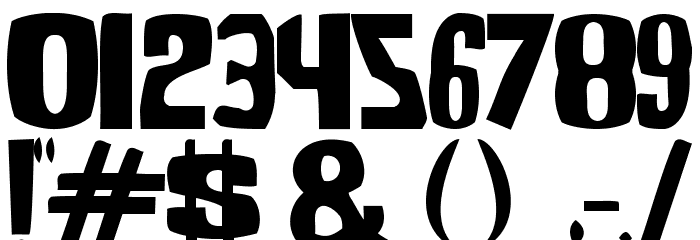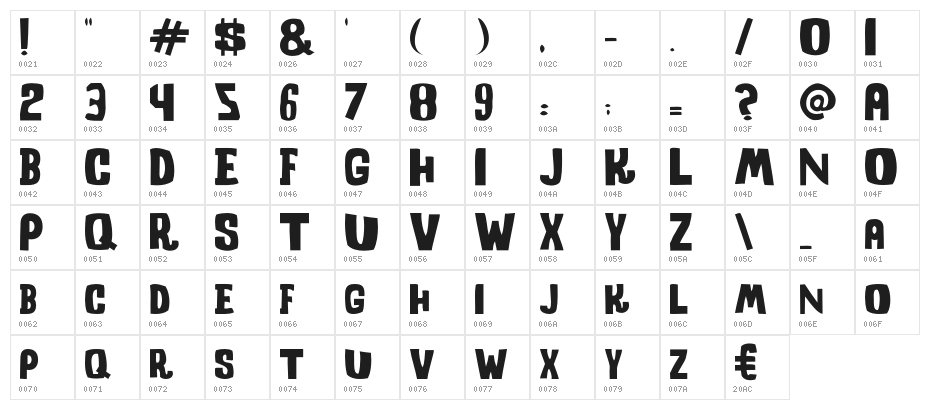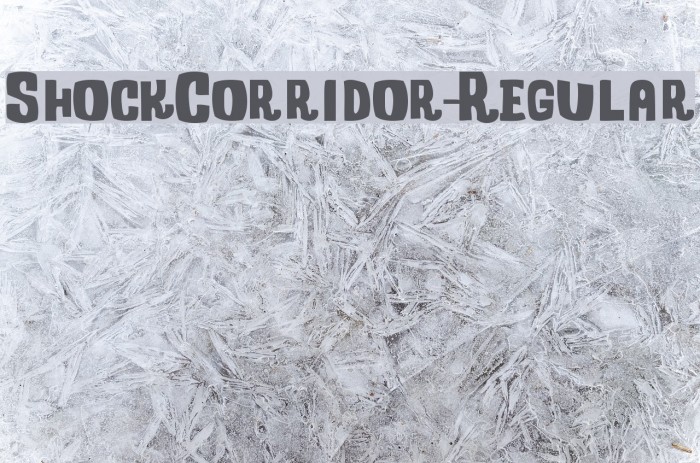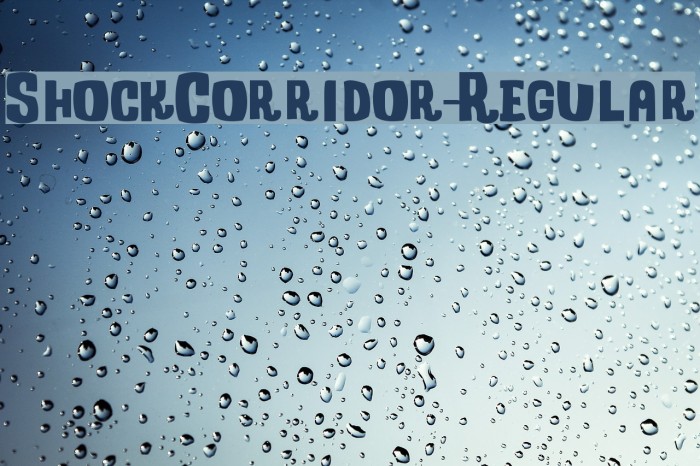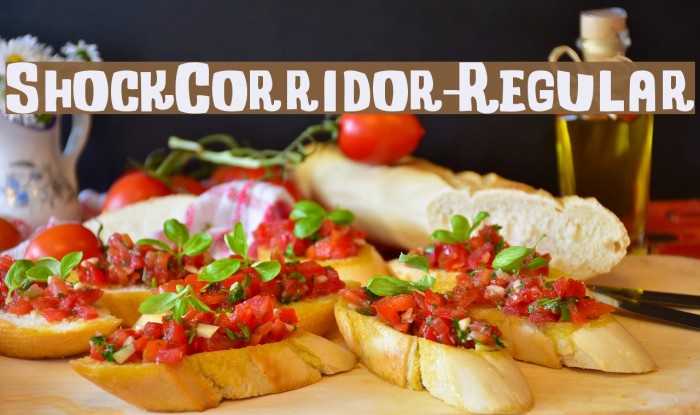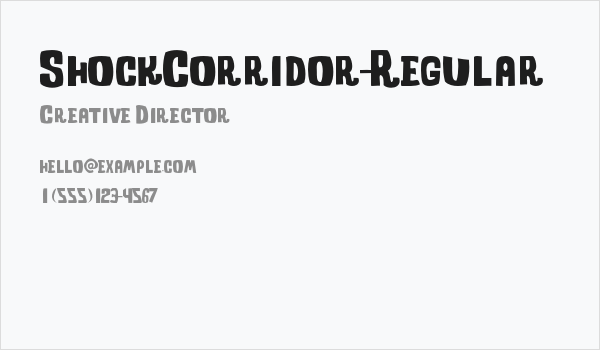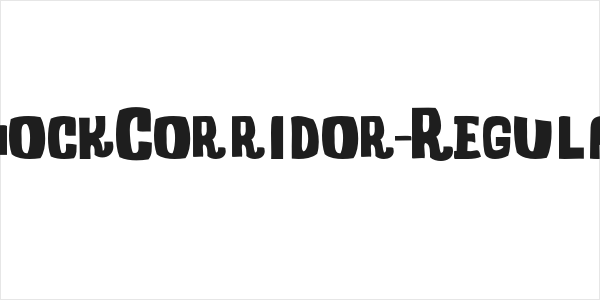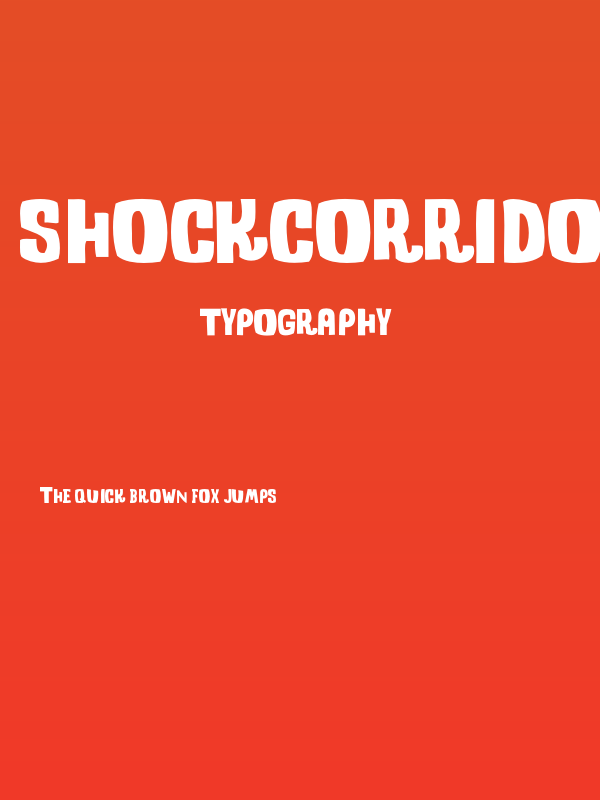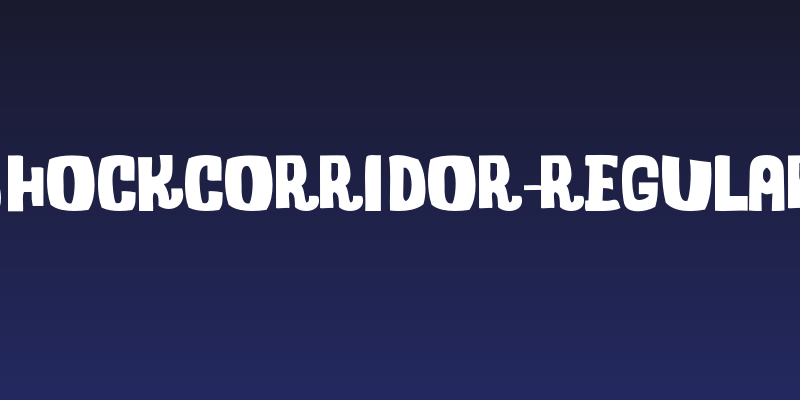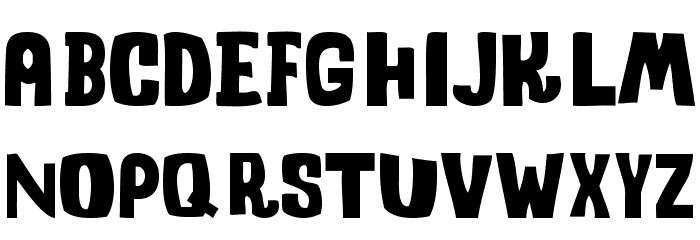
ShockCorridor-Regular Font
ShockCorridor-Regular Description
This font features a bold and dynamic style with a strong presence. The characters are thick and robust, with a slightly irregular form that adds a sense of movement and energy. The uppercase letters are particularly striking, with a blocky appearance that commands attention. The lowercase letters maintain the same boldness, creating a cohesive look across the alphabet. Numbers and special characters are equally bold, ensuring consistency throughout. The overall design is reminiscent of vintage poster fonts, making it ideal for projects that require a strong visual impact.
Proposed ProjectsIdeal for posters, headlines, branding, and any project requiring a strong visual impact.